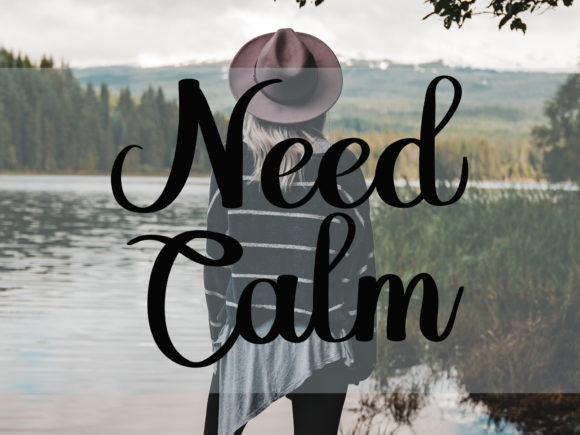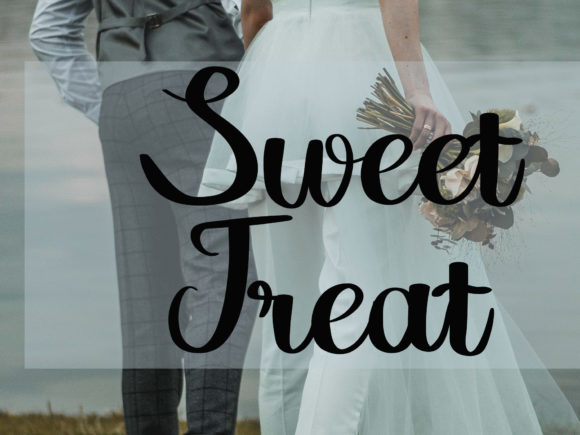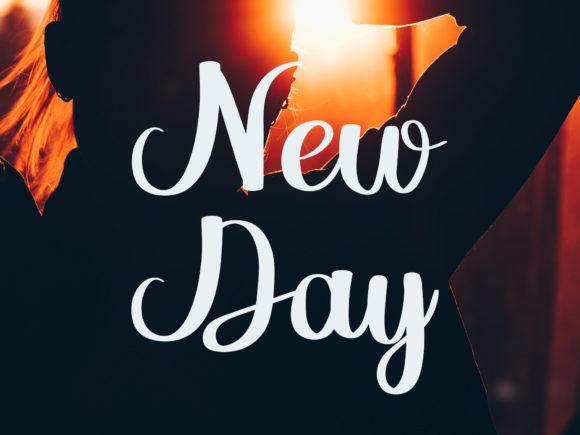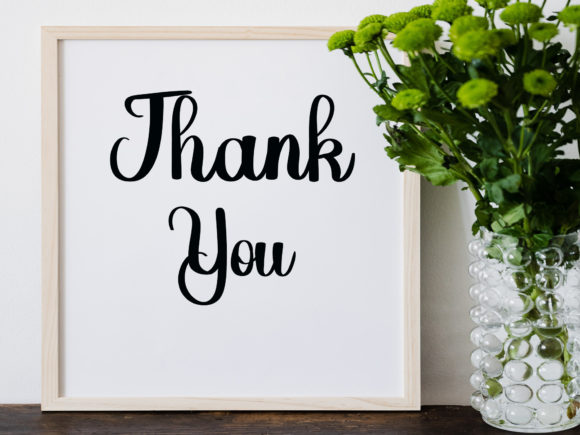
Discover the Charm of Good Luuk Font: Elevate Your Designs with a Timeless Handwritten Style
Are you on the hunt for a font that adds a personal touch to your designs? Look no further than Good Luuk, a lovely and timeless handwritten font that’s perfect for creating eye-catching logos, branding, and quotes. With its unique and beautiful touch, Good Luuk is sure to make your design come alive!
Handwritten fonts have a way of adding a touch of warmth and personality to any design. They’re perfect for creating a sense of nostalgia or conveying a sense of friendliness and approachability. Good Luuk is no exception, with its elegant and flowing script that’s sure to capture the attention of your audience.
What Makes Good Luuk Special?
So, what sets Good Luuk apart from other fonts? For starters, every letter has a unique and beautiful touch that gives the font a sense of character and personality. The font is also highly versatile, making it perfect for a wide range of design applications, from logos and branding to quotes and social media graphics.
Good Luuk is a font that’s sure to delight designers and crafters alike. Whether you’re creating a logo for a new business, designing a social media graphic, or crafting a handmade card, Good Luuk is the perfect choice. The font is easy to read and understand, making it perfect for use in a variety of different contexts.
Key Features of Good Luuk Font
• Timeless handwritten style: Good Luuk has a classic, timeless look that’s perfect for creating designs that won’t go out of style.
• Unique and beautiful touch: Every letter has a unique and beautiful touch that gives the font a sense of character and personality.
• Highly versatile: Good Luuk is perfect for a wide range of design applications, from logos and branding to quotes and social media graphics.
• Elegant and flowing script: The font has an elegant and flowing script that’s sure to capture the attention of your audience.
How to Use Good Luuk Font
Tips for Getting the Most Out of Good Luuk
• Experiment with different sizes and colors: Good Luuk looks great in a variety of different sizes and colors, so don’t be afraid to experiment and find the look that works best for your design.
• Pair with other fonts: Good Luuk pairs well with a variety of other fonts, so try pairing it with a bold font for a contrasting look.
• Use it for headlines and titles: Good Luuk is perfect for use in headlines and titles, where its elegant and flowing script can really shine.
Good Luuk font is a lovely and timeless handwritten font that’s perfect for creating eye-catching logos, branding, and quotes. With its unique and beautiful touch, Good Luuk is sure to make your design come alive! Whether you’re a designer or crafter, Good Luuk is a font that’s sure to delight. So why wait? Download Good Luuk today and start creating stunning designs that will leave a lasting impression on your audience.